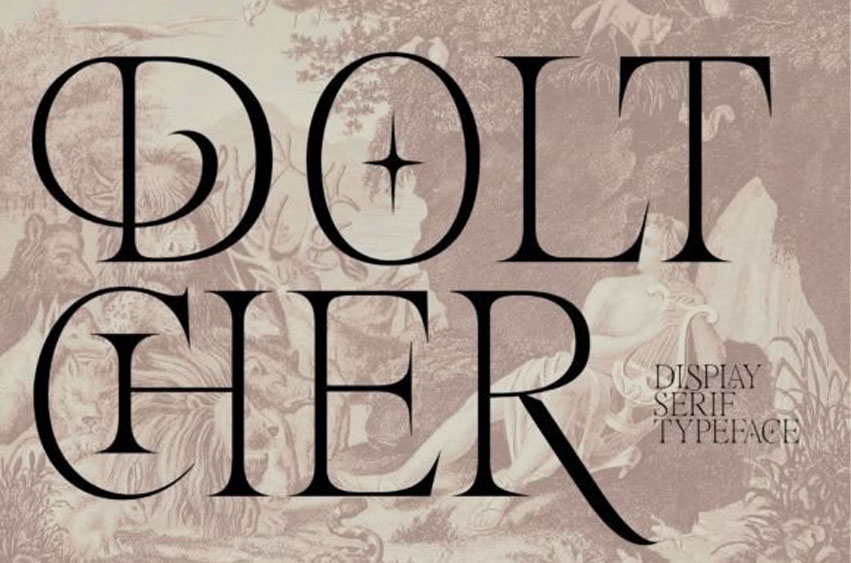
Doltcher Font is a depiction of a serif typeface that seems low effort in terms of exploration. However, the aesthetic touch contained in this font will adjust its existence to the standard typeface and it doesn’t make the aesthetic side damage the basic order of the typeface. Add it confidently to your projects, and you will love the results.